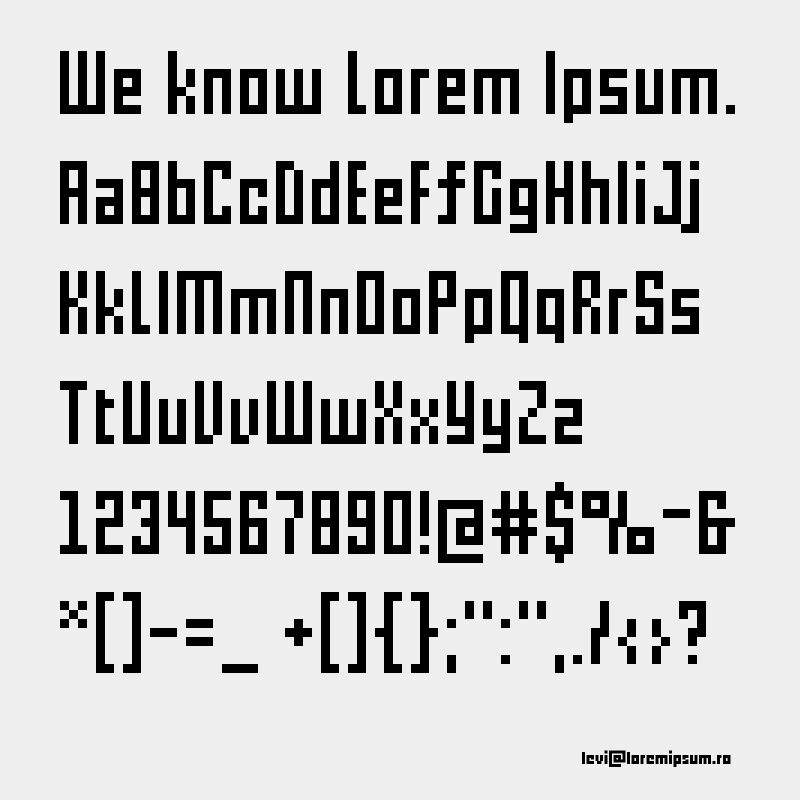
"Pxl" is a striking bitmap font created by designer Elvis Mehmedovic. Its pixelated, condensed style lends it a retro-futuristic aesthetic that immediately commands attention.
The sharp, angular forms and stark contrasts give this font a bold, unapologetic presence, making it well-suited for eye-catching headlines, gaming interfaces, and vintage-inspired designs. Pxl's unique character outlines and compact width allow for creative typographic arrangements, adding visual interest and dynamism to any project.
This versatile font can seamlessly transition from digital to print applications, offering designers a distinctive typographic tool to elevate their work.
Font from the pxl family, created to work on longer texts.